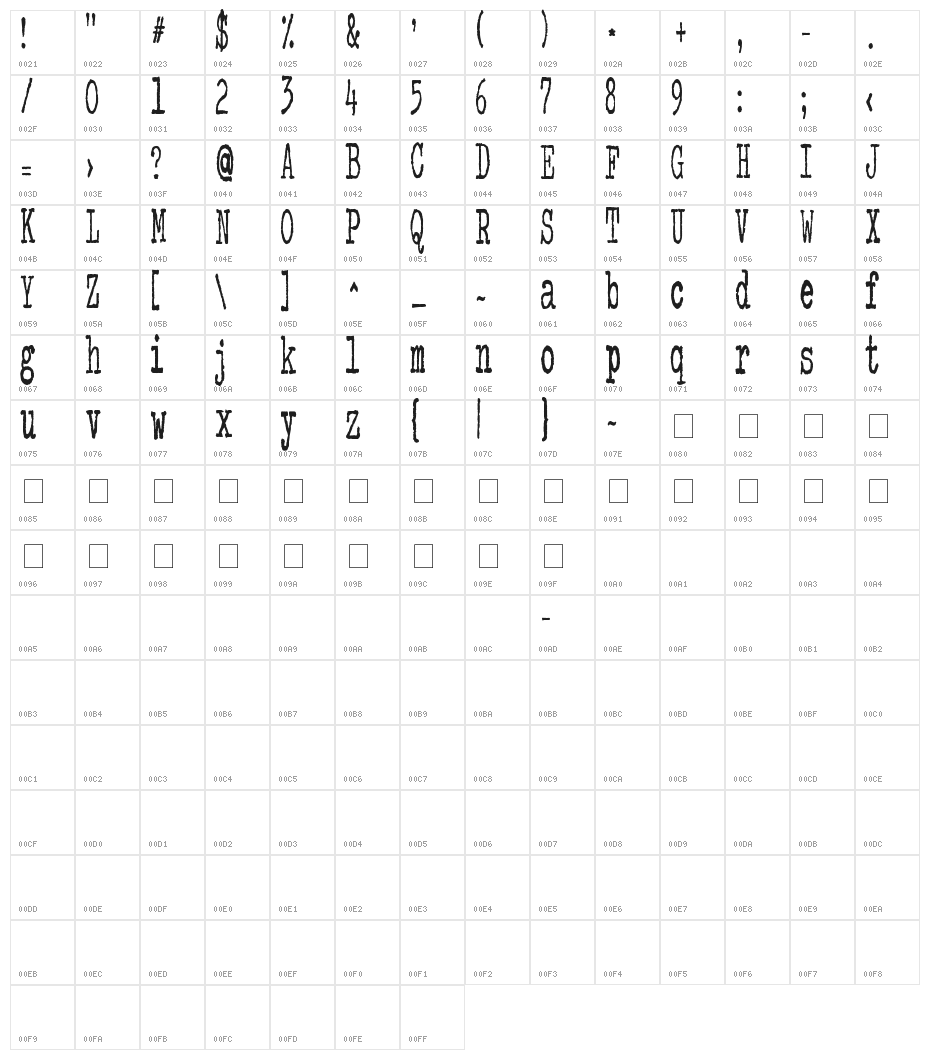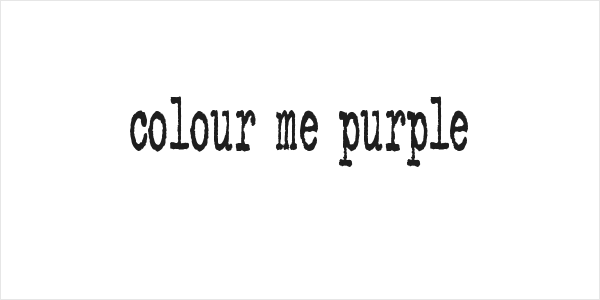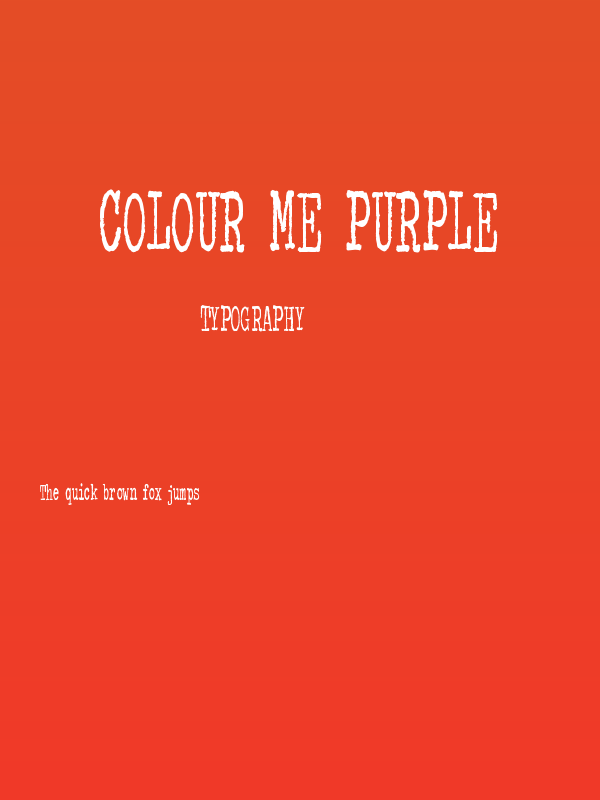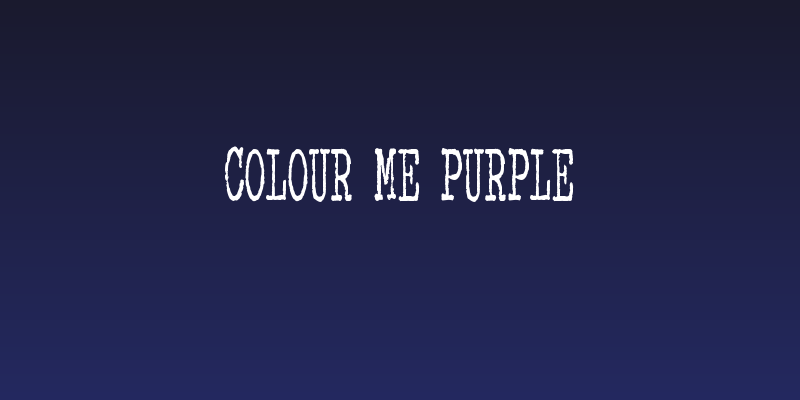
colour me purple Font
colour me purple Description
This font features a distressed, textured appearance reminiscent of vintage typewriter styles. The characters are bold and have a slightly uneven, hand-crafted look, giving them a unique, rustic charm. The uppercase letters are tall and narrow, while the lowercase letters maintain a consistent height, adding to the font's legibility. The numbers and special characters follow the same textured style, ensuring a cohesive look across all glyphs. This font's distinctive style makes it ideal for projects that require a touch of nostalgia or a handcrafted aesthetic.
| Proposed Projects | Ideal for vintage-themed designs, posters, book covers, and branding that requires a rustic or handcrafted feel. |